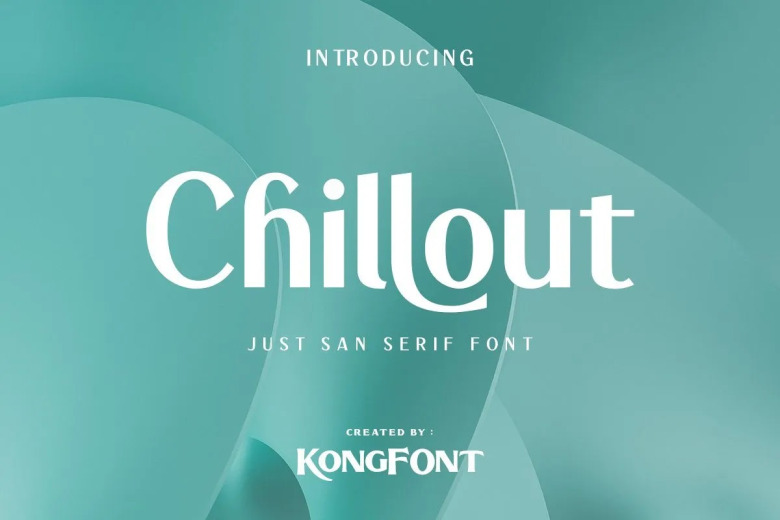
Chillout Sans Font
Chillout bildung is a bolder-neater sans serif font designed by fontkong. This can definitely be paired with so many projects, say yes to adding it to one of your best and most creative ideas and see how high you’ll soar! It’s ideal for logos or posters, though it’s also works well with other designs such as creative projects like branding and identity work.
Chillout Sans Serif Font